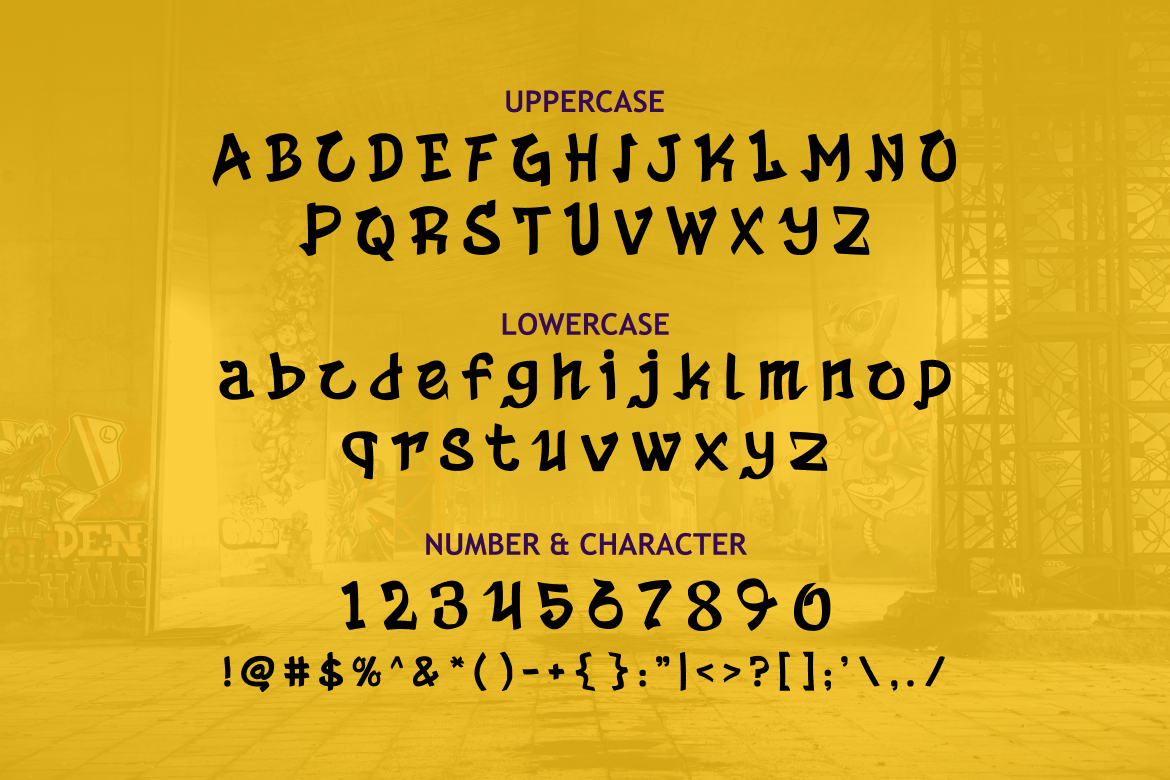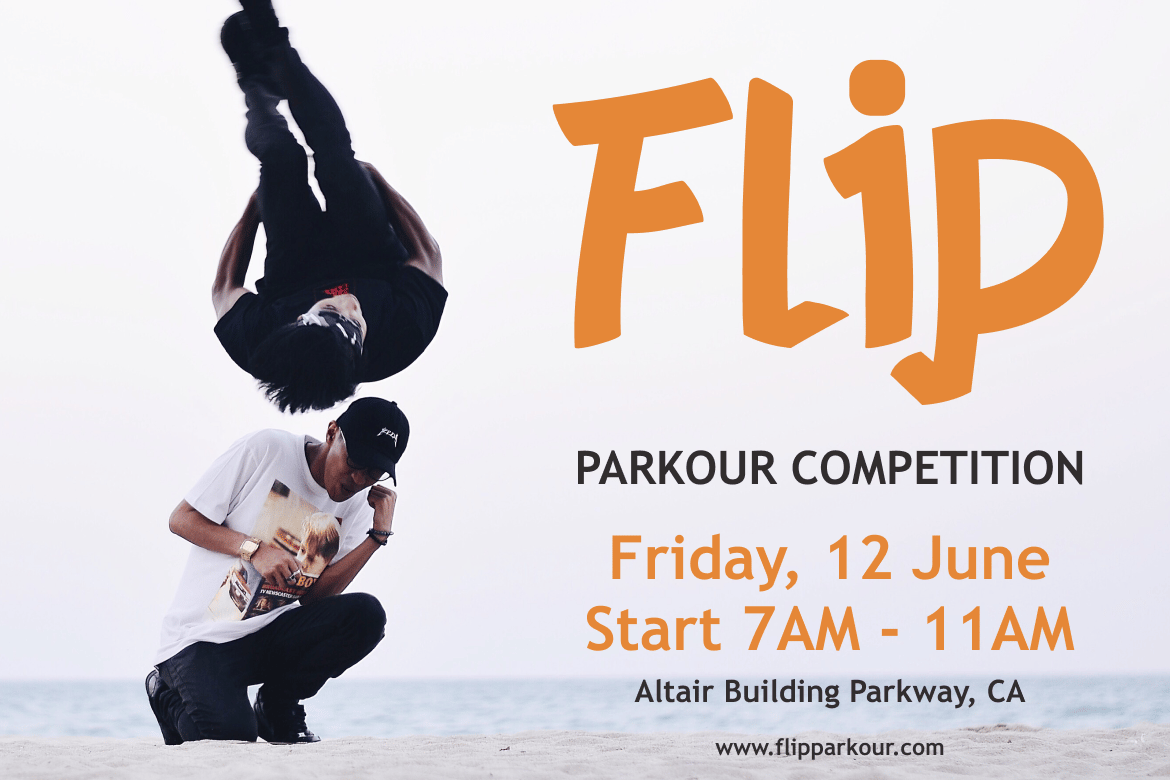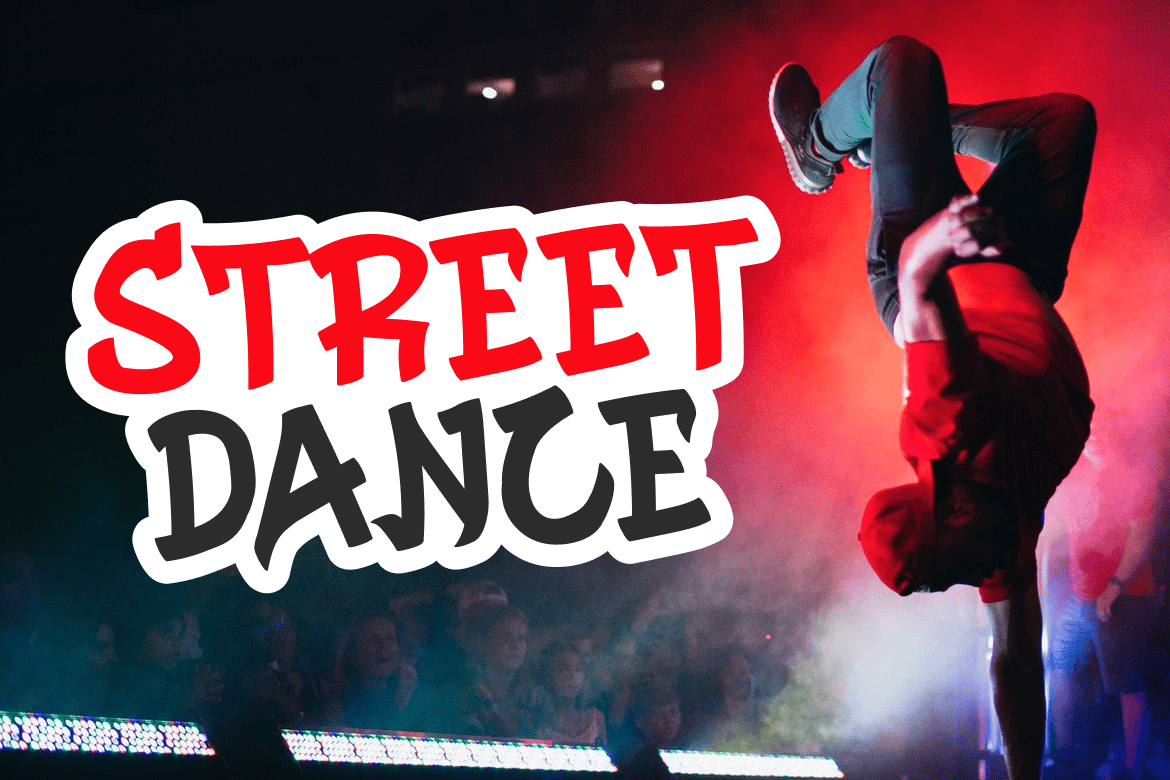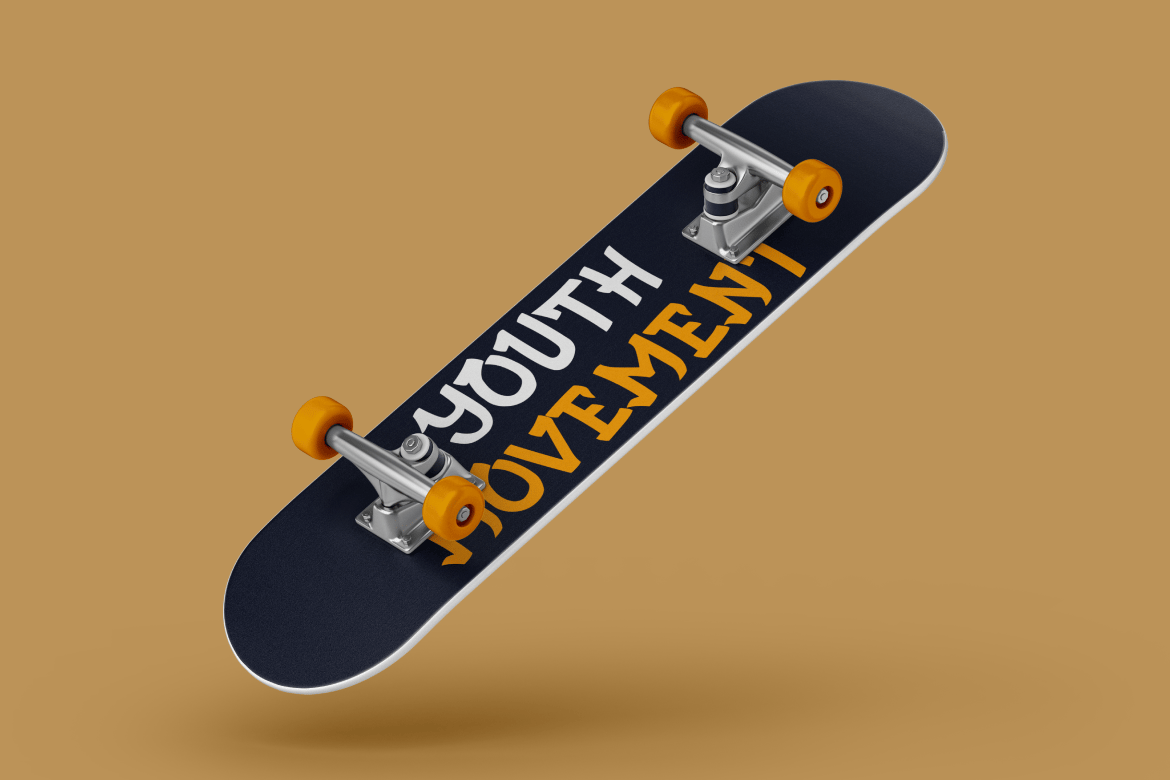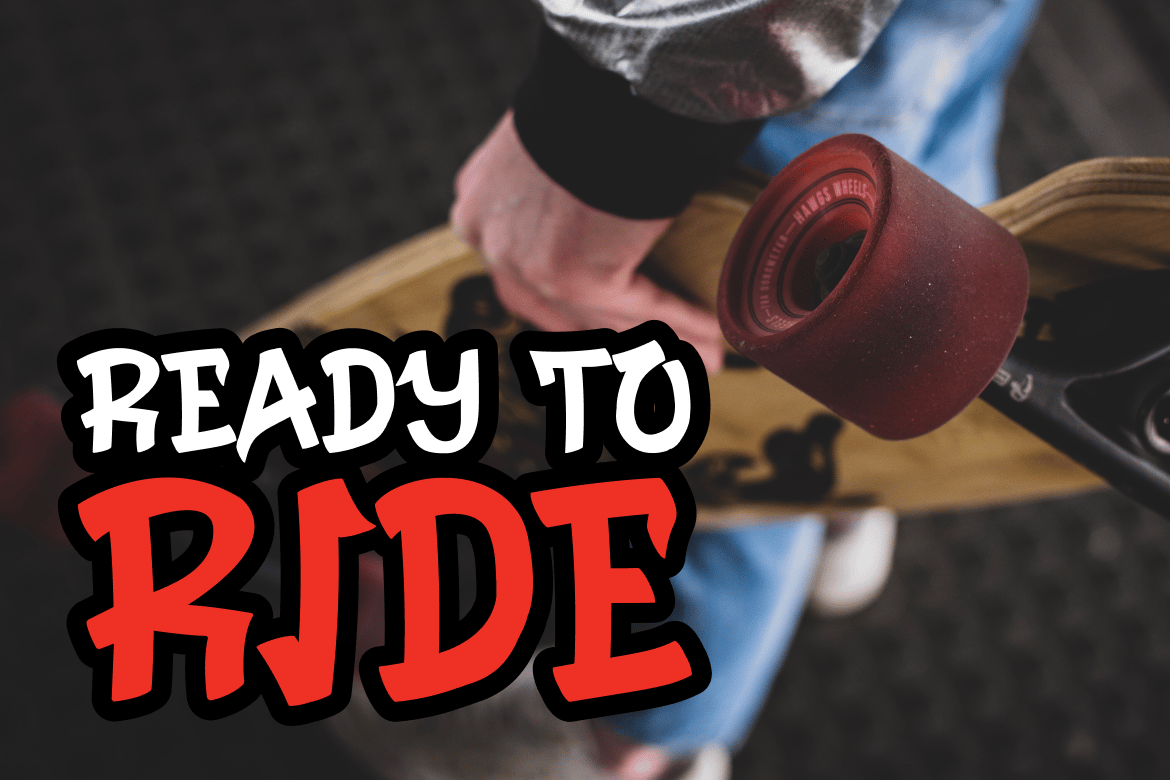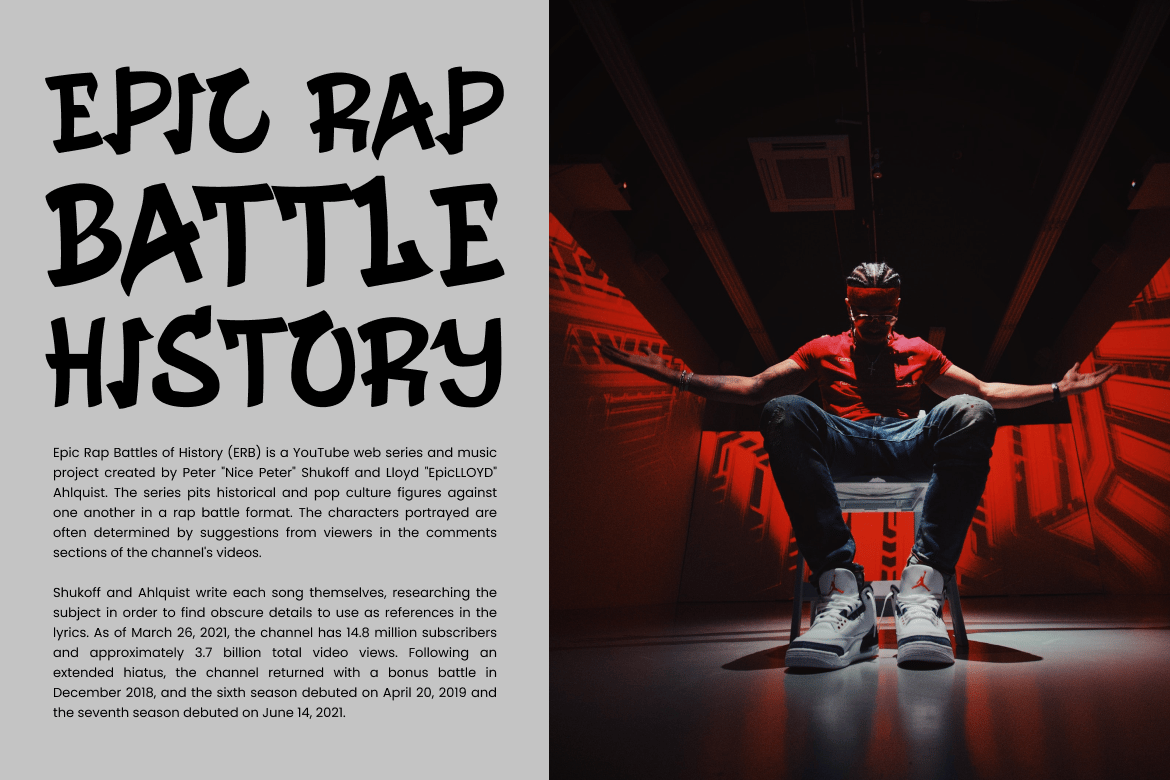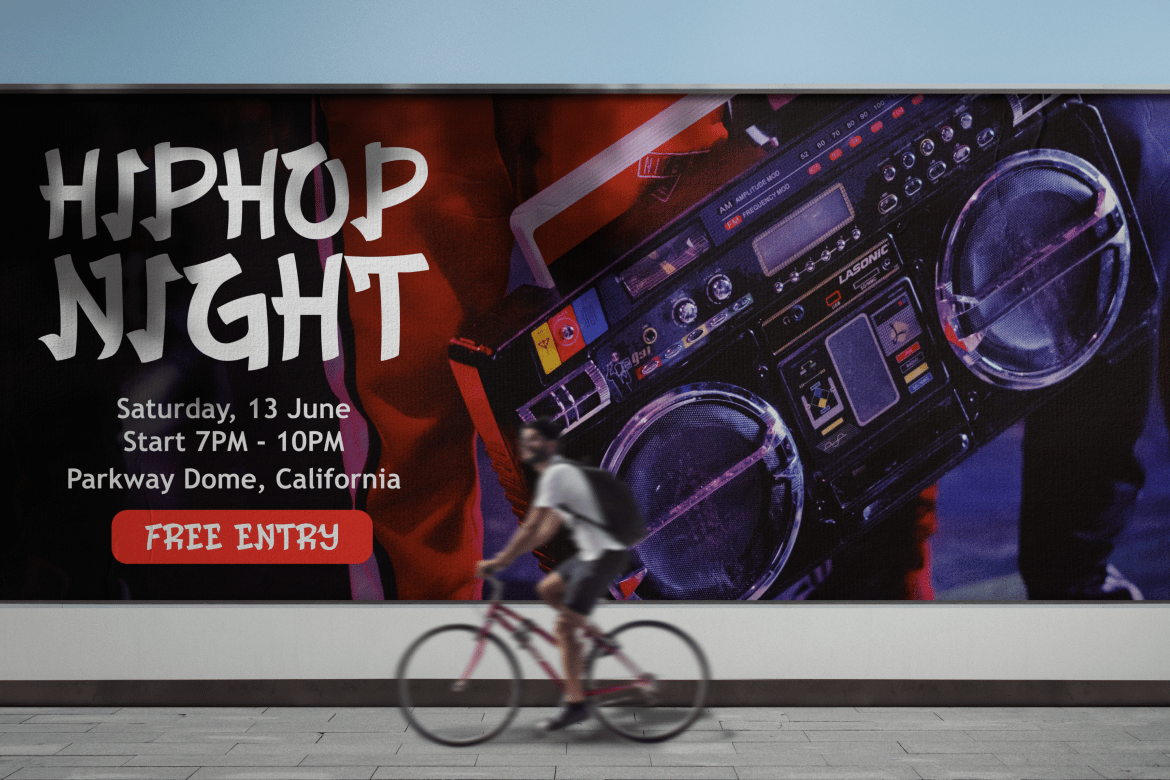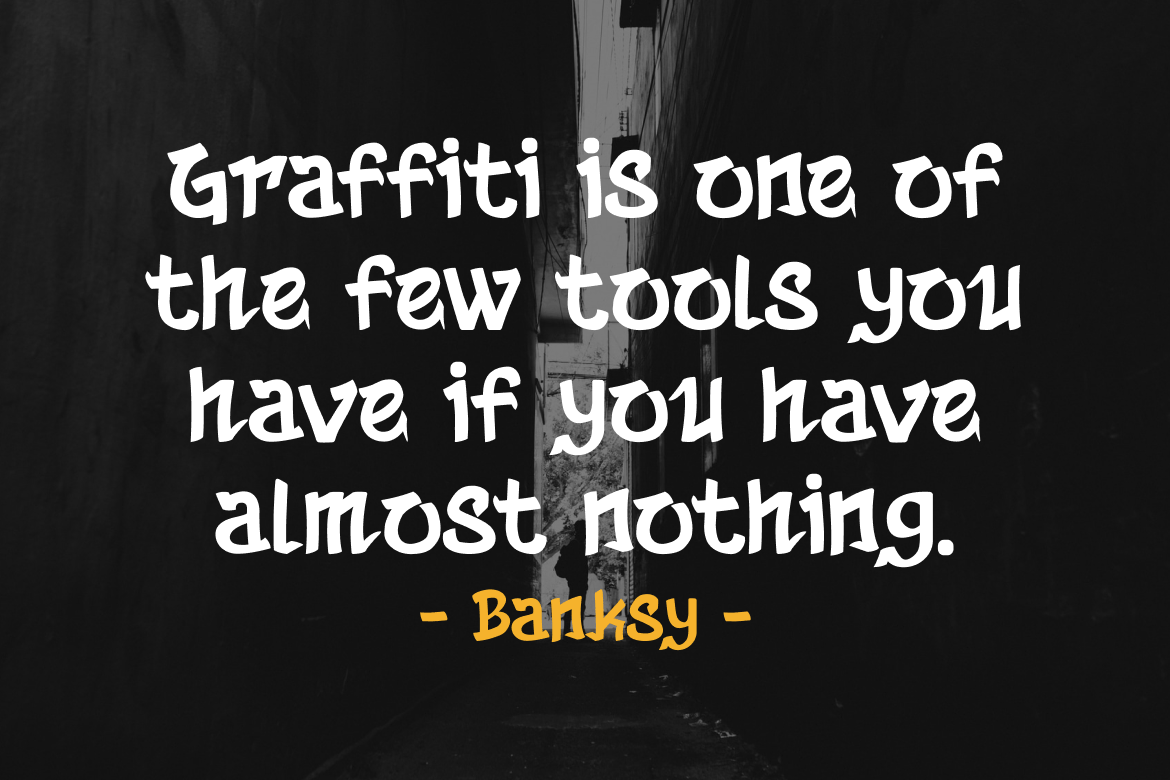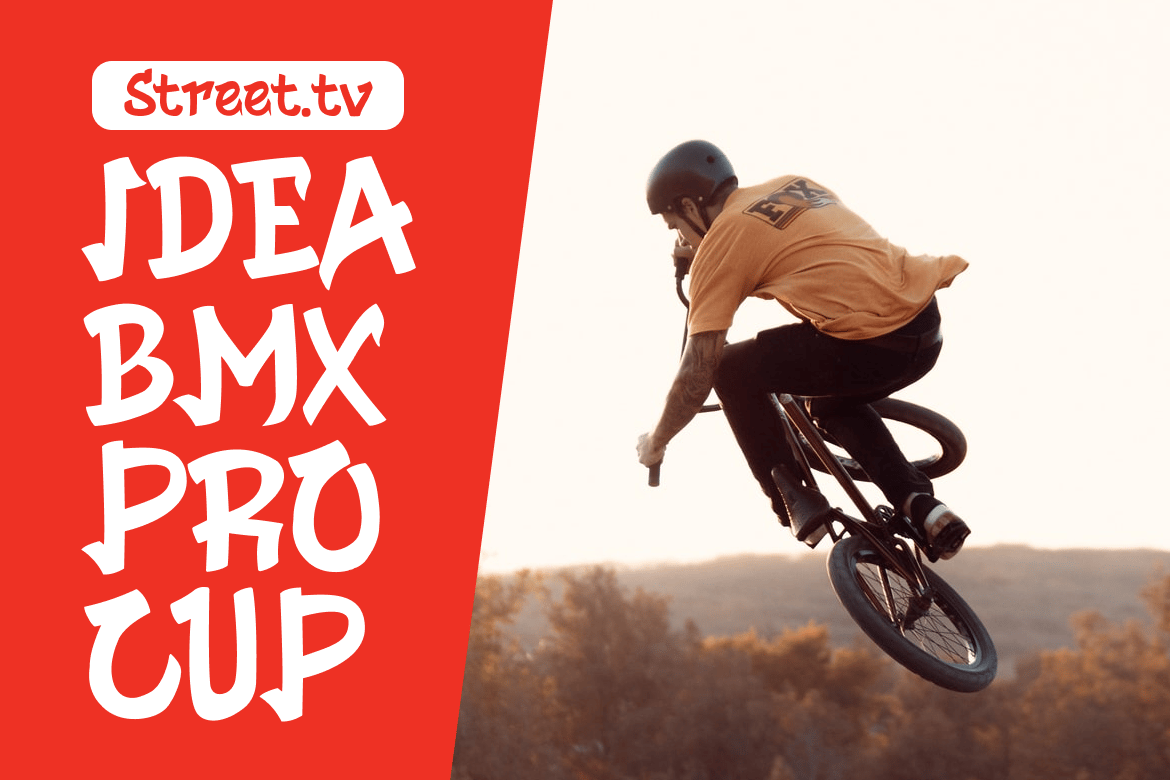
Toughart – Urban Graffiti Font
Introducing Toughart, the edgy and playful graffiti font adds a touch of urban grit to any design. With its rough and rugged style, Toughart is perfect for projects that need a bit of rebellious flair. This font’s street art vibe makes it an ideal choice for hip-hop and extreme sport segmented magazines and posters, movie titles, music posters, YouTube covers, and social media page covers.
The Toughart font’s versatility is one of its most notable features. It’s playful enough to convey a sense of fun and adventure while still being tough and edgy enough to capture the spirit of the streets. This makes it a perfect choice for any project that needs to evoke a sense of urban cool.
Crafted with attention to detail, Toughart features hand-drawn characters that capture the essence of street art. Its unique style will make your designs stand out and grab viewers’ attention.
Whether creating a poster for an upcoming event, designing a logo for a clothing line, or crafting a social media cover, Toughart is the perfect font to add street cred to your project.